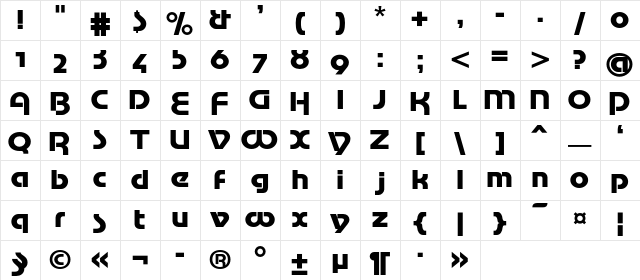
MotterTekturaC Regular
MotterTekturaC takes a measured approach to typography — its balanced proportions and neutral character make it a reliable workhorse for both digital and print work.